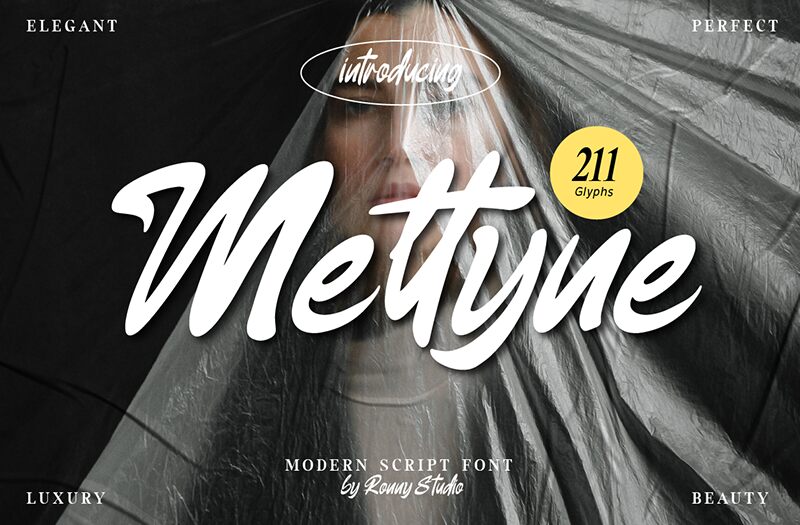
Meltyne DEMO
Meltyne font, crafted by Ronny Studio, embodies a whimsical handwritten style that exudes charm and personality. Its playful strokes and fluid curves create a sense of spontaneity, making it visually striking and inviting. The generous breadth of the characters brings a sense of openness, allowing the letters to dance across the page with ease.
This font’s unique aesthetic appeals to a wide range of design contexts, expertly bridging casual elegance with creative flair. Ideal for branding projects, greeting cards, and social media graphics, Meltyne captures attention while maintaining an approachable quality. Whether invoking nostalgia or modern storytelling, this font is perfect for any endeavor that seeks to leave a lasting impression.